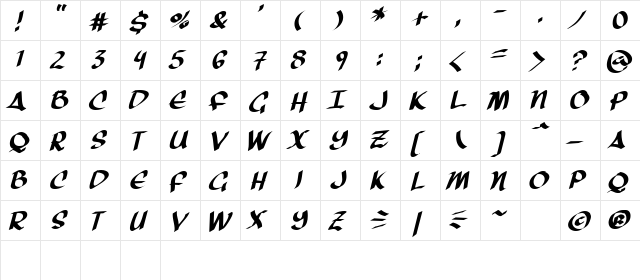
Three Arrows Italic
Design Context for Three Arrows Typeface
Three Arrows is a composed and adaptable typeface that performs quietly and consistently across a wide range of design contexts. Its italic angle brings a sense of urgency and motion to the letterforms.
Pro Tip: Try Three Arrows for annotation and caption copy alongside an upright companion — the contrast in angle creates a dynamic but ordered typographic system.